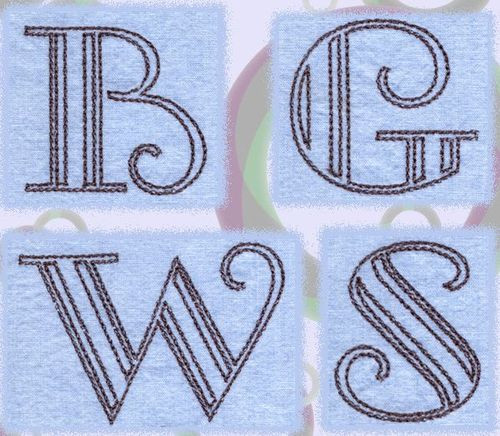
018 Galleria Outline Font
Galleria Monograming/Lettering Embroidery Set comes in 2" and 3" tall capital letters to fit all 4x4 hoops. They are outline chain stitched for a hand finished look.